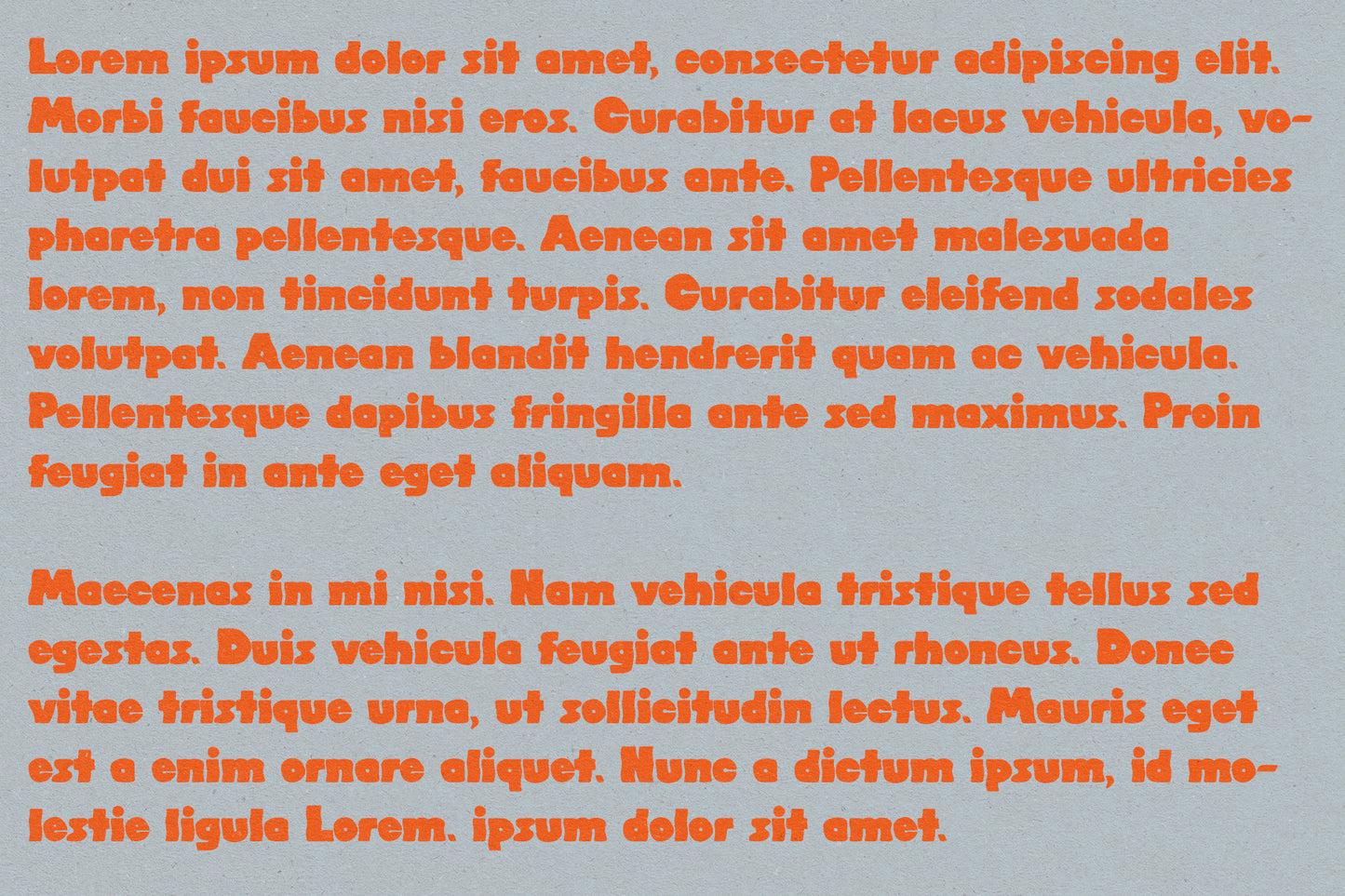
Whitewater Typeface
Whitewater is a bold, wavy typeface inspired by the ripples of the sea. This one is perfect for playful projects that need something a bit different, but it's still really readable and easy to use. I think it looks great here with bright colours that make it stand out even more!